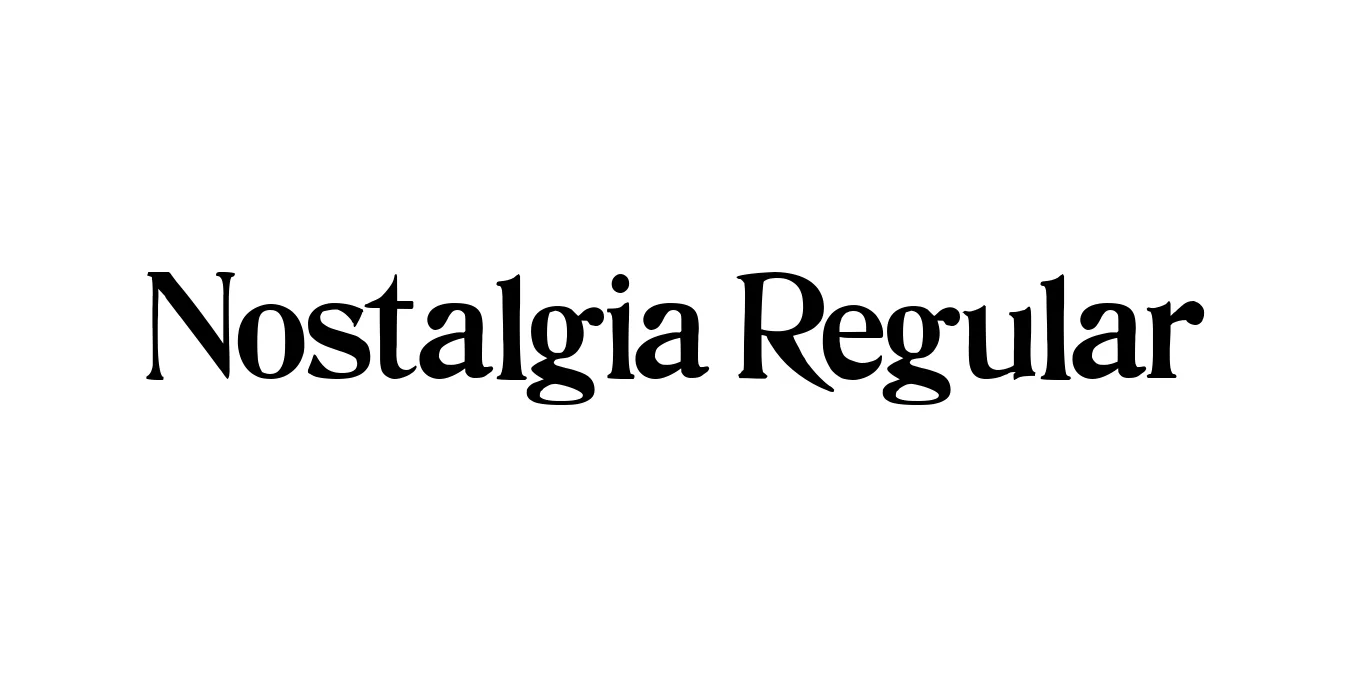
Nostalgia Regular
Nostalgia Regular is a vintage-inspired serif font that evokes a sense of timeless elegance and warmth. Developed by Alit Design, this typeface draws inspiration from mid-20th century typography, blending classical proportions with modern refinements. Its clean lines and balanced letterforms make it an excellent choice for projects requiring a sophisticated yet approachable aesthetic that bridges the gap between old-world charm and modern clarity.
This font is particularly noted for its versatility in both digital and print media. Whether used for high-end branding, editorial layouts, or wedding invitations, Nostalgia Regular provides a nostalgic charm that resonates with contemporary design trends. The typeface often includes a variety of stylistic alternates and ligatures, allowing designers to create unique and personalized typographic compositions for luxury and lifestyle projects.
Nostalgia Regular Best Uses
Creating timeless logos and brand identity systems.
High-end magazine layouts, headlines, and body text.
Elegant invitations, save-the-date cards, and menus.
Aesthetic quotes, lifestyle graphics, and Instagram stories.
Premium product labels for cosmetics, wine, or artisanal goods.